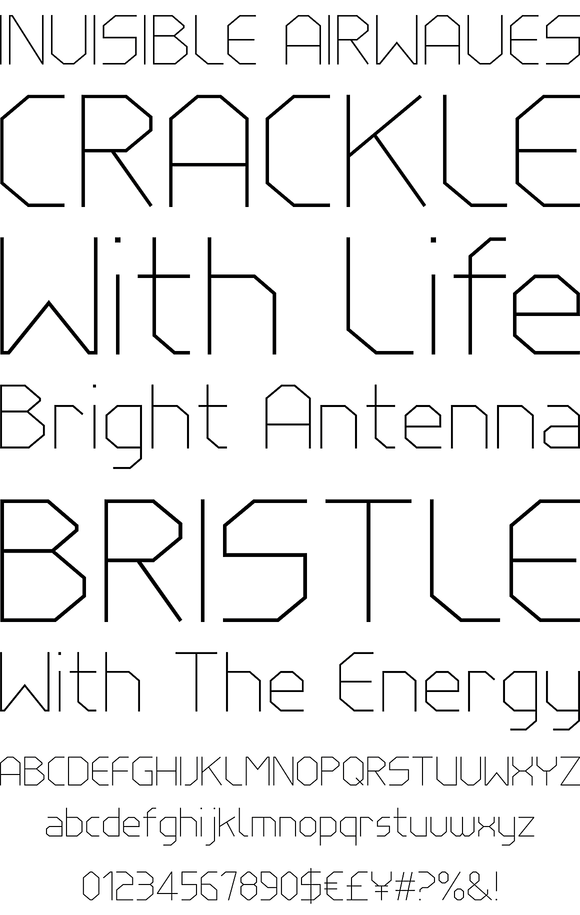
LineWire
Foundry: The Northern Block
A modern geometric typeface influenced by the work of Dutch designer Wim Crouwel. The angular nature of the design lends itself strongly towards large display applications but because each character is formed from a consistent grid, stylish body copy can also be achieved. Details include 6 weights, a complete character set, manually edited kerning and Euro symbol.